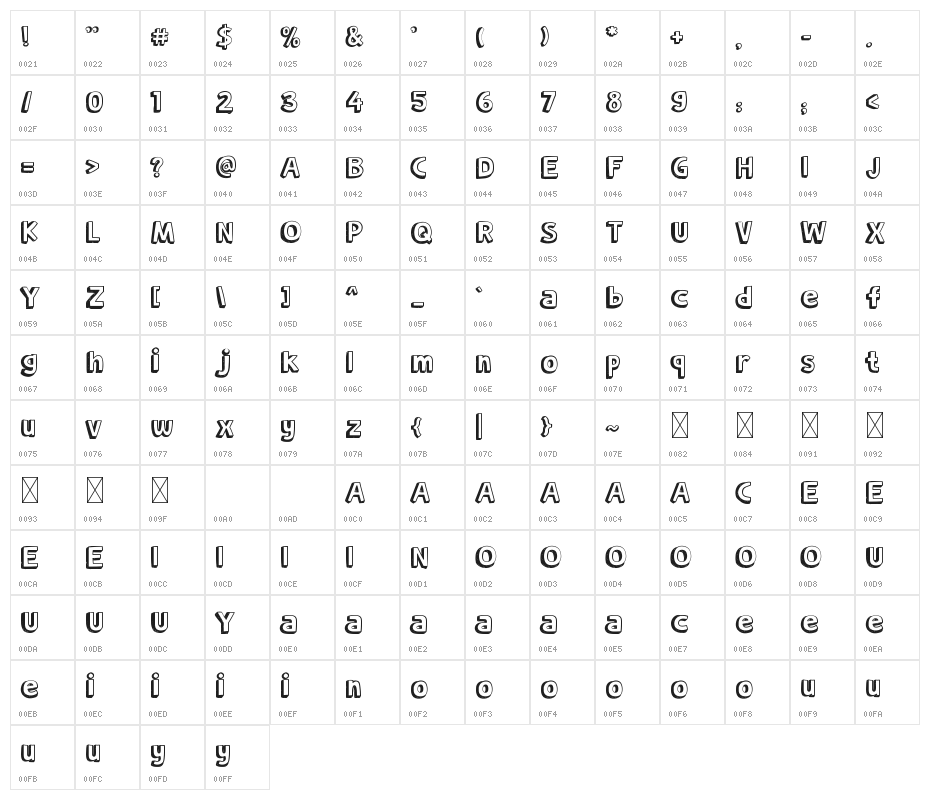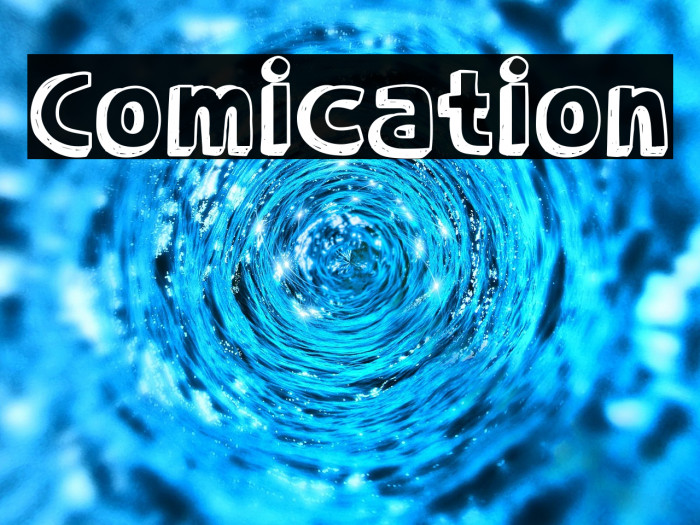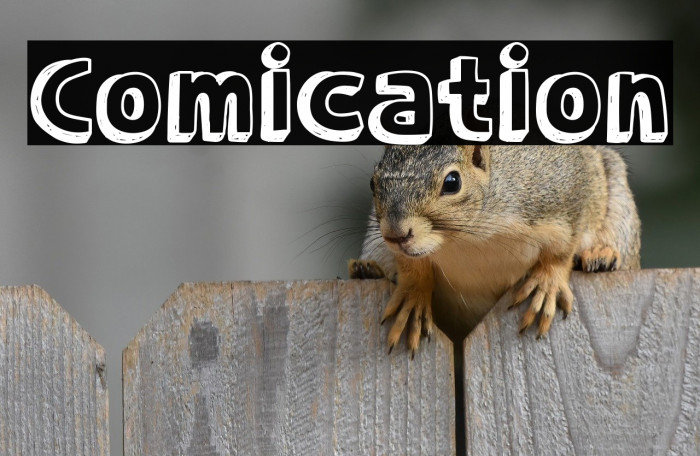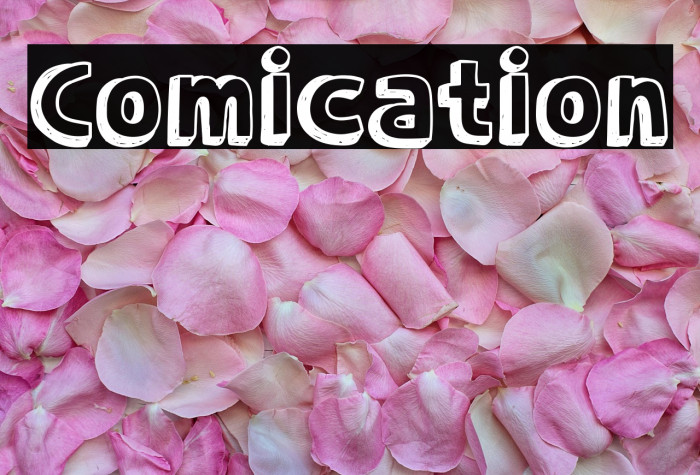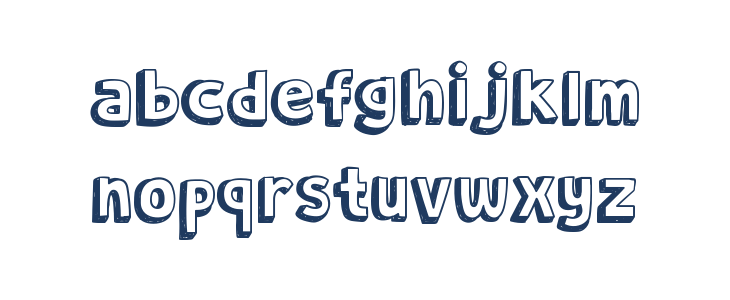
Comication Font
Comication Description
This playful and bold font features a comic-inspired style with thick, rounded edges and a slightly irregular outline that gives it a hand-drawn appearance. The letters are uppercase and lowercase, with numerals and a variety of special characters. The design includes subtle texture details within the strokes, adding a dynamic and lively feel. Its boldness and whimsical nature make it ideal for projects that require a fun and engaging visual impact.
| Overall Style | Playful, Comic |
| Proposed Projects | Ideal for comic books, children's books, playful branding, posters, and social media graphics. |